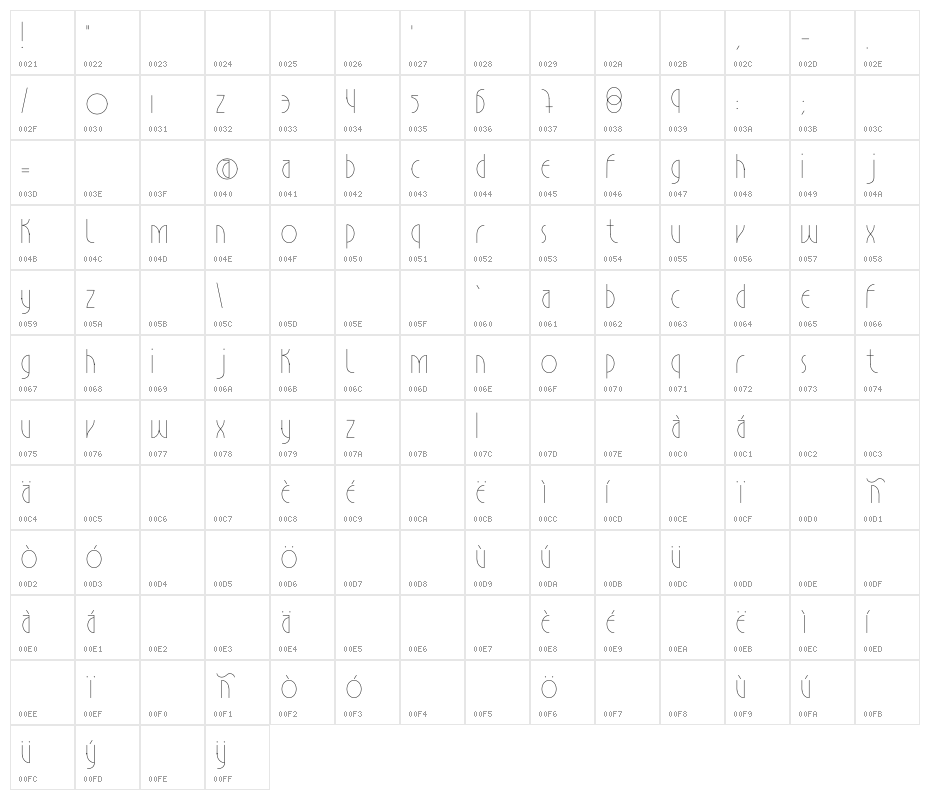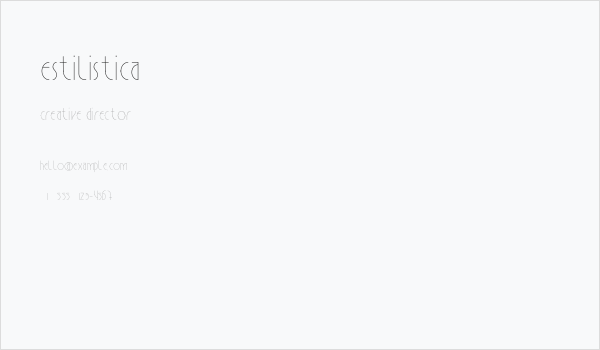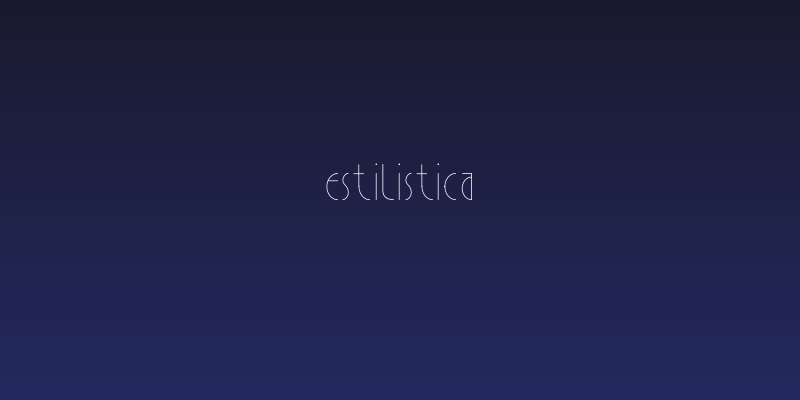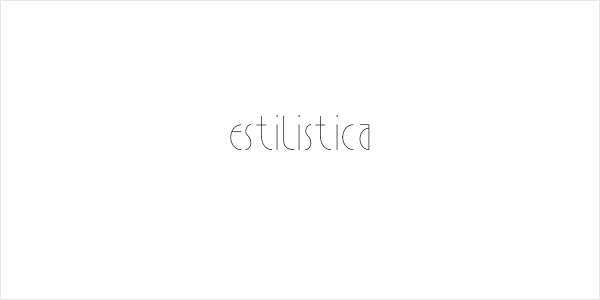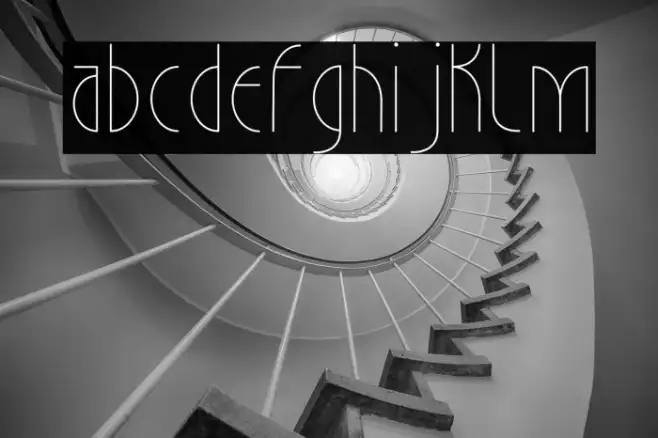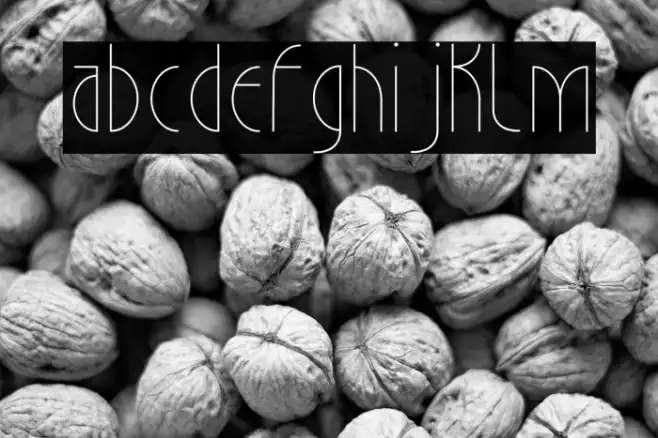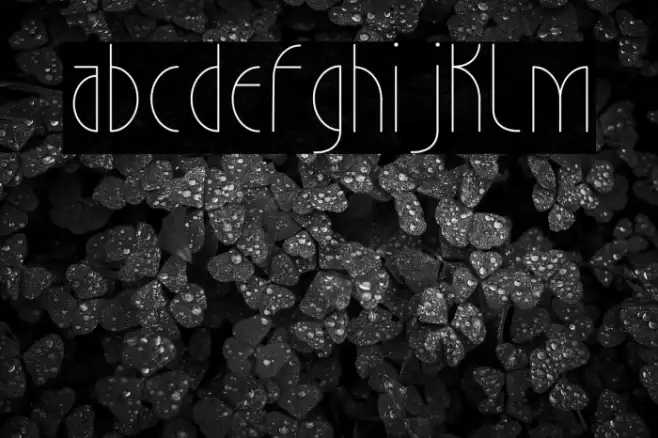
Estilistica Font
Estilistica Description
This font features a sleek, modern design with elongated, thin strokes and a minimalist aesthetic. The characters are slightly condensed, giving it a sophisticated and elegant appearance. The uppercase and lowercase letters maintain a consistent style, with smooth curves and sharp angles that create a harmonious balance. The numerals are designed with a similar approach, ensuring readability while maintaining the font's unique style. Special characters are included, complementing the overall design with their clean and simple lines.
| Overall Style | Modern, Minimalist |
| Proposed Projects | Ideal for fashion magazines, luxury branding, modern art posters, and high-end product packaging. |